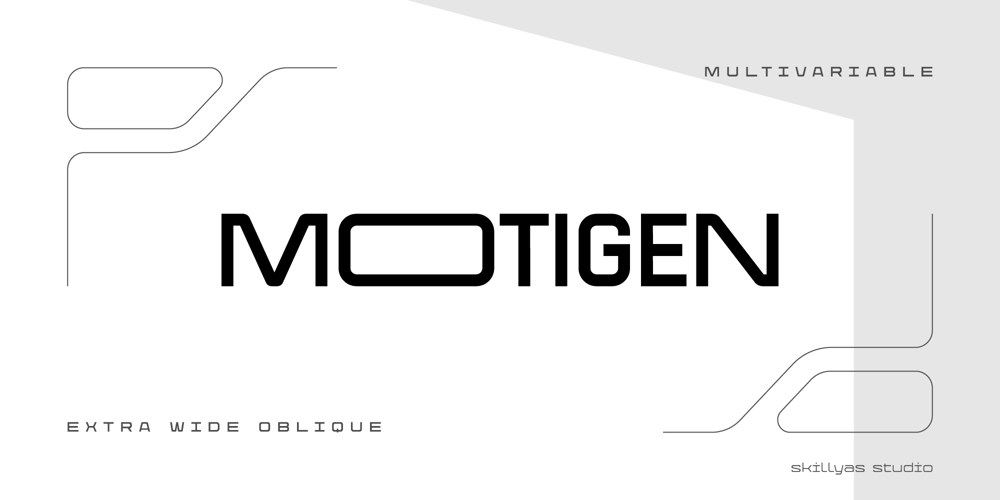
Motigen
Motigen font
Motigen Font Family was designed by ahmad faizin and published by skillyas studio. Motigen contains 18 styles and family package options. Motigen Family Font: Modern Versatility in Three Distinct StylesIntroducing the Motigen Family Font, a dynamic typeface that offers unparalleled versatility with its three distinct styles: Regular, Wide, and Extra Wide. Perfectly crafted for modern design, Motigen combines clean, contemporary lines with a touch of elegance, making it ideal for a wide range of creative projects.This font family includes three variable weights—Thin, Regular, and Bold—allowing designers to seamlessly adjust the font’s appearance to fit their needs. Whether you’re working on branding, editorial design, or web applications, Motigen’s flexibility ensures your work stands out.Key Features: Three Styles: Available in Regular, Wide, and Extra Wide, providing options for diverse design needs. Variable Fonts: Includes Thin, Regular, and Bold weights, allowing for precise control over the font’s appearance. Modern and Clean: Sleek design with balanced proportions, perfect for contemporary projects. Versatile Application: Ideal for branding, advertising, digital media, and more. Elevate your designs with the Motigen Family Font—a typeface that adapts to your creative vision, offering style and functionality in every weight and style.